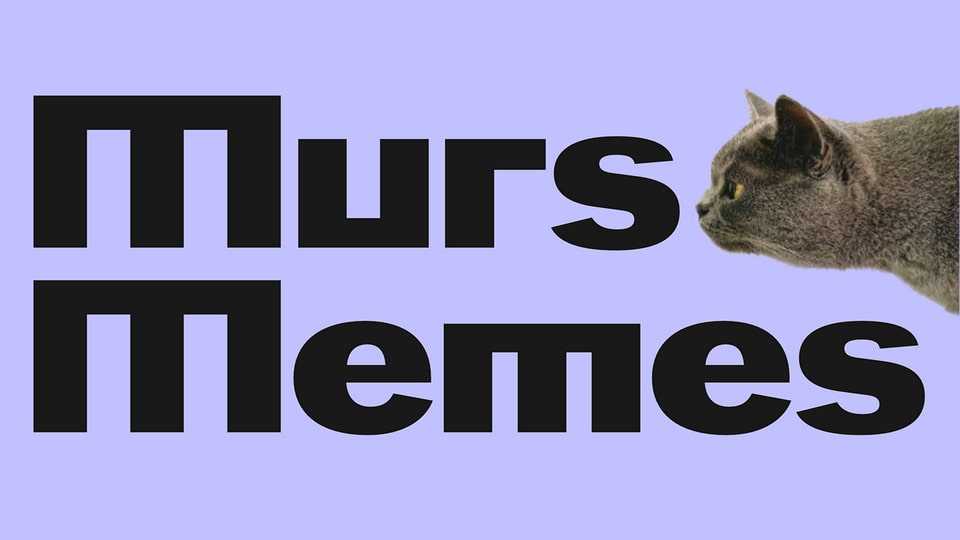
Download Murs Memes font, an unusual and exciting exploration of what the letters of one alphabet would look like if it consisted exclusively of modules or entire characters from another alphabet, numbers, currency symbols, and punctuation.
Designer: Vitaliy Gotsanyuk